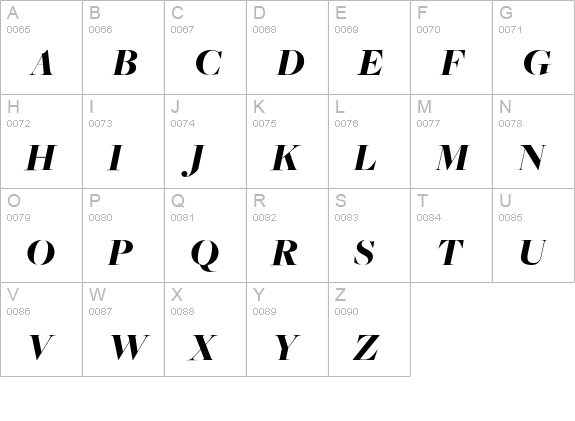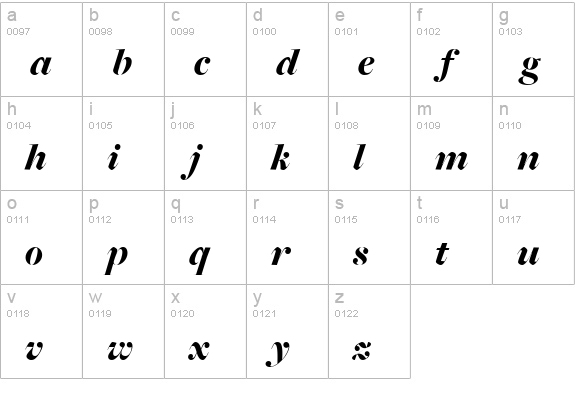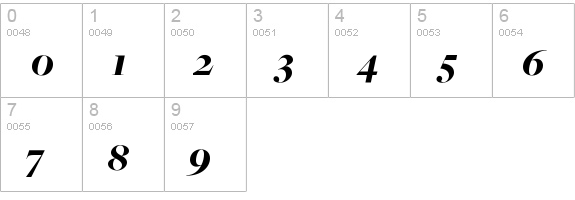
FreightBigBlackItalic Font Details
FreightBigBlackItalic is a bold and striking font that commands attention with its strong presence and modern aesthetic. The sleek italic design adds a touch of elegance to any project, making it perfect for headlines, titles, and branding materials. The font exudes confidence and power, making it ideal for projects that require a bold statement. What makes FreightBigBlackItalic even more appealing is that it is available for free download at FontsMarket.com. This means that you can access this high-quality font without any cost, making it a valuable addition to your design toolkit. Whether you're working on a professional project or a personal creative endeavor, FreightBigBlackItalic is sure to make a bold impact and elevate your design to the next level. Download it today and unleash the power of this stunning font in your work.